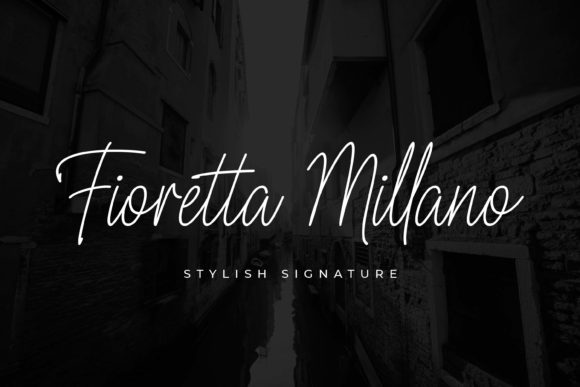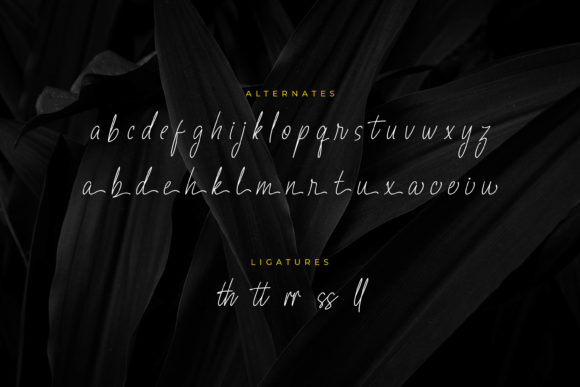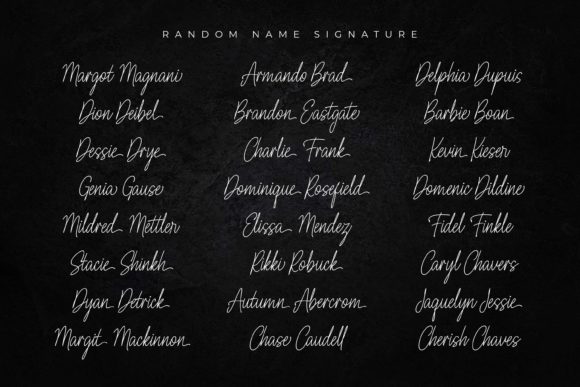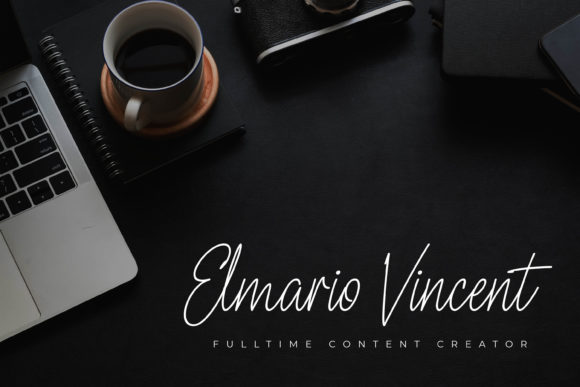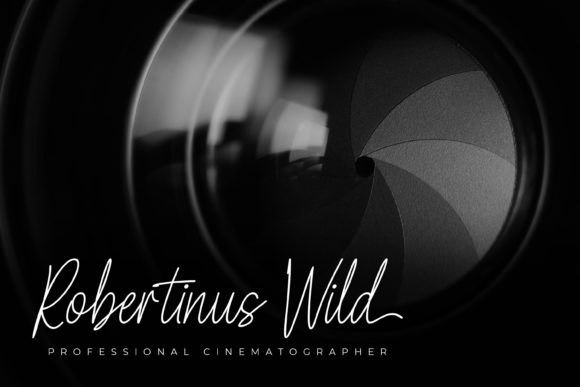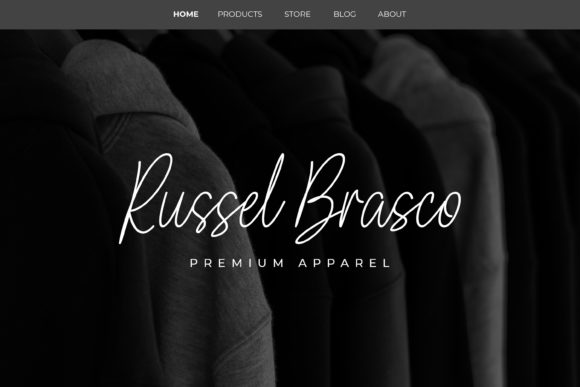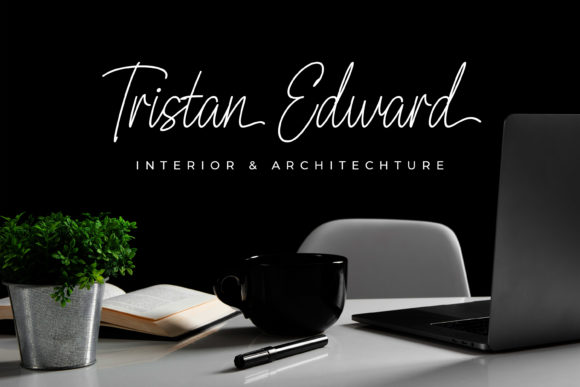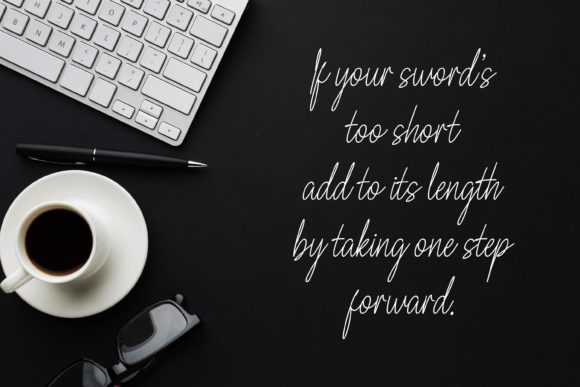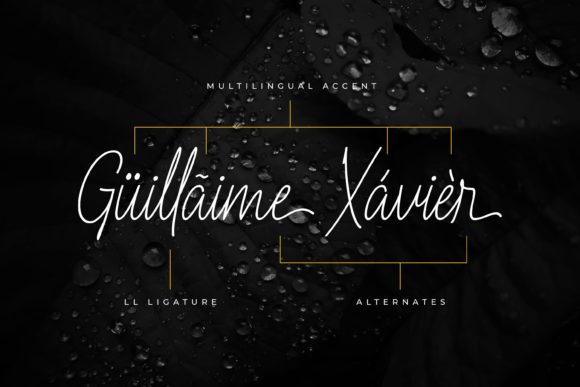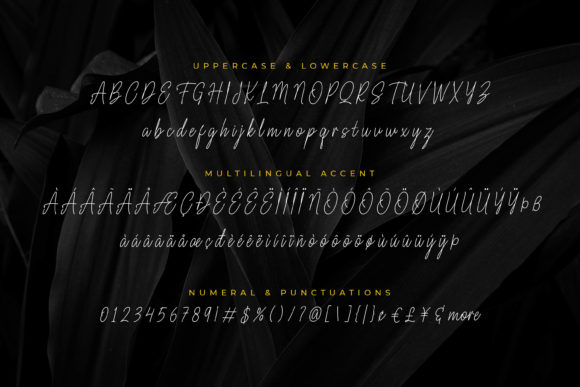
Fioretta Millano Font
About Fioretta Millano Font
Fioretta Millano feels incredibly flowing and elegant. It looks stunning on wedding invitations, thank you cards, quotes, greeting cards, logos, business cards and every other design which needs a handwritten touch.